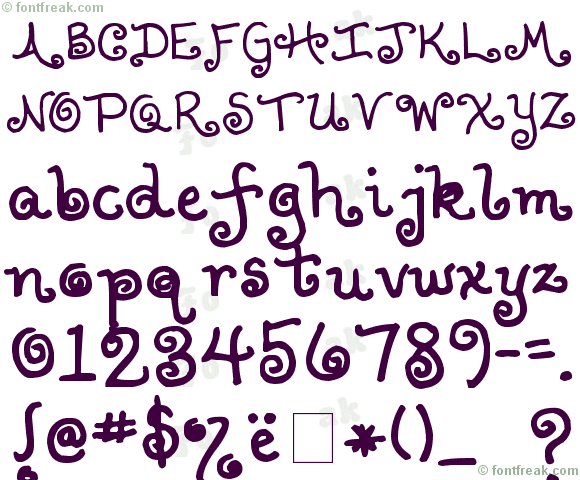
The Lollipop font, designed by Kimberly Geswein in 2009, is a delightful handwritten typeface that captures the essence of playful creativity. This display font is characterized by its rounded, whimsical letters that exude a friendly and approachable vibe. The stroke weight is consistent, offering a smooth flow, while the unique decorative elements, such as playful swirls and curls, add a charming touch. The generous spacing between characters enhances readability, making it an excellent choice for a variety of design projects.
Lollipop is particularly well-suited for applications that require a lighthearted and inviting atmosphere. It shines in designs for children's birthday invitations, where its fun and quirky aesthetic can capture the excitement of the occasion. Additionally, it makes a perfect choice for restaurant menus, especially for eateries that want to convey a casual, family-friendly experience. Graphic designers can also utilize Lollipop in marketing materials, such as flyers and social media posts, to attract attention and engage audiences. Other creative uses include greeting cards and educational materials, where a friendly appearance can help convey messages effectively.
What sets the Lollipop font apart is its ability to evoke a sense of fun while remaining versatile enough for a range of applications. Its unique character shapes and inviting presence make it an excellent choice for those aiming to create memorable and engaging visual content. Embrace the playful spirit of Lollipop and elevate your next design project with this charming typeface.